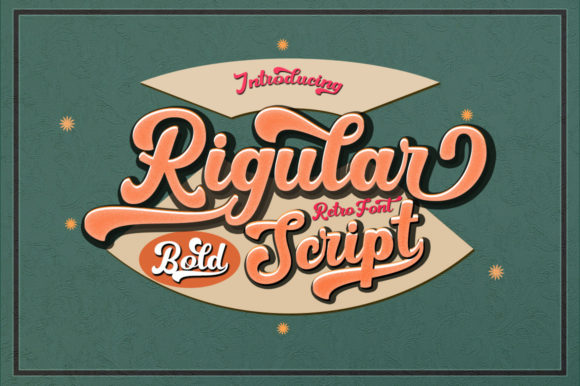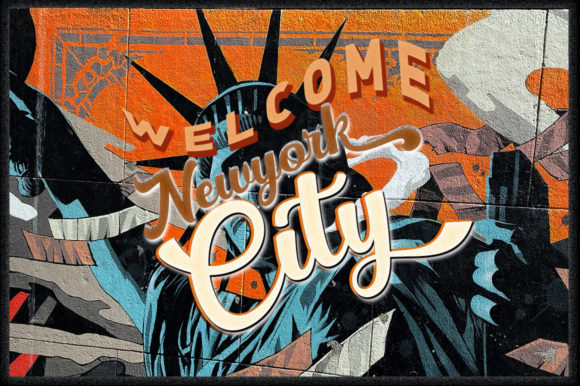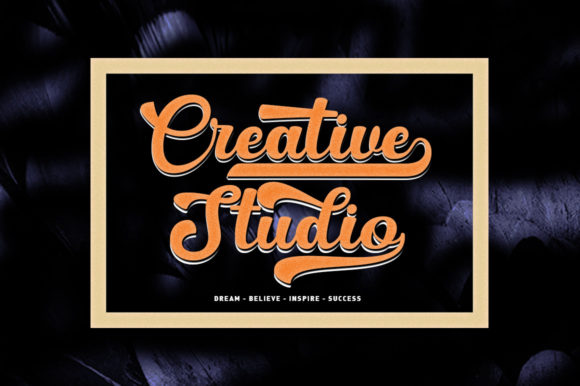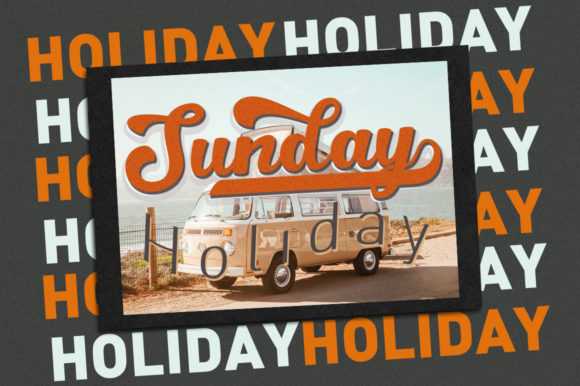
About Rigular Script Font
Rigular Script is a gorgeous and bold handwritten font, crafted to give your headlines and logotype projects a retro touch. This font is PUA encoded which means you can access all of the glyphs and swashes with ease!Â